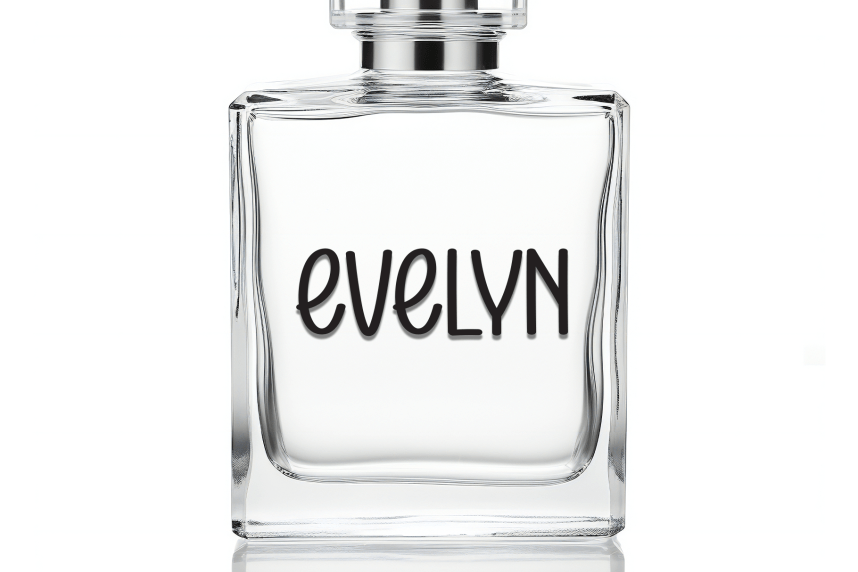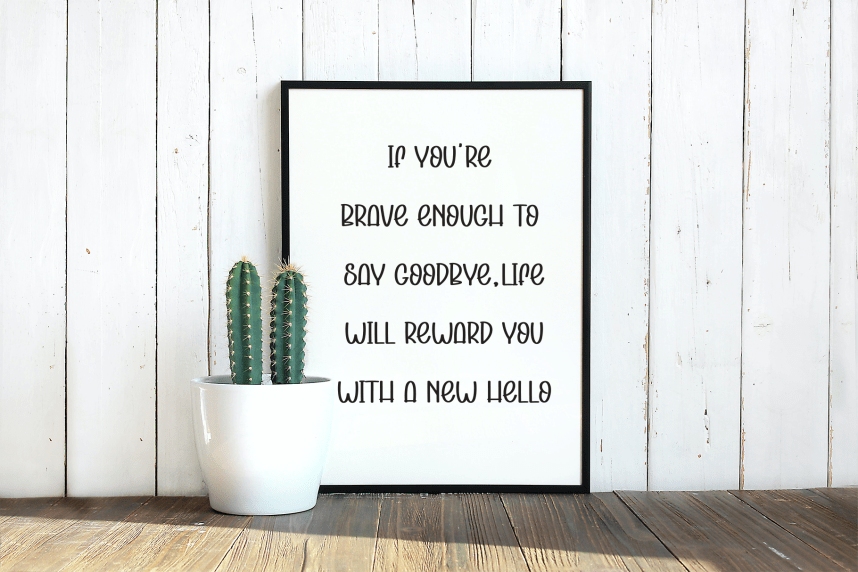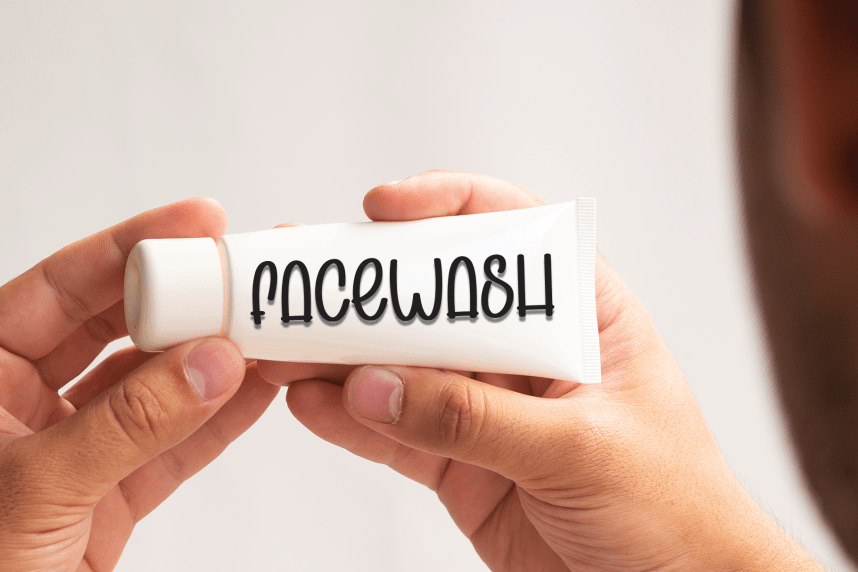
Pinky Vibes Handcrafted Font
Pinky Vibes Handcrafted Font is a sweet and friendly handwritten display font. Cute and fun, this font is ideal for writing wedding invitations, cards, or any other design that might need a playful touch!